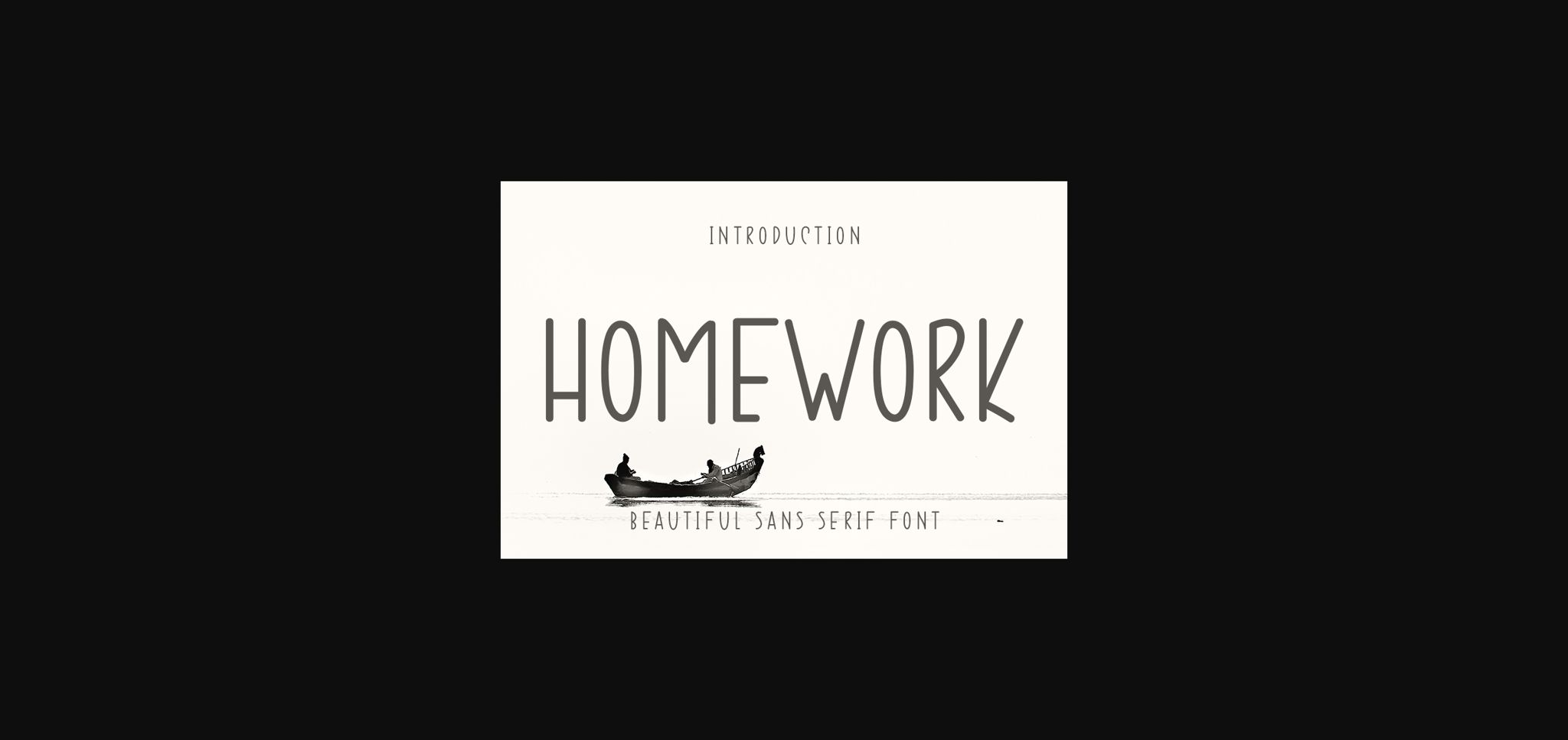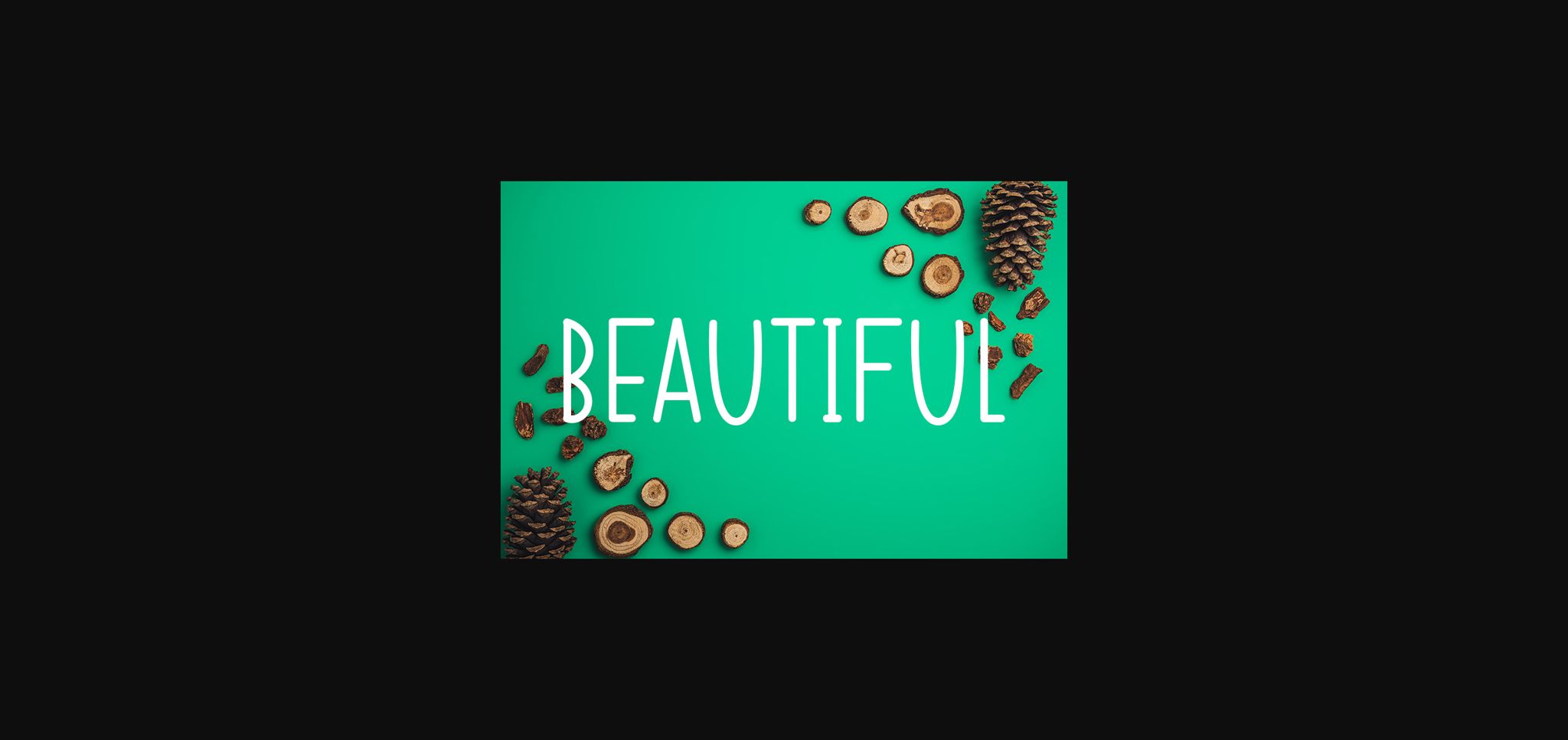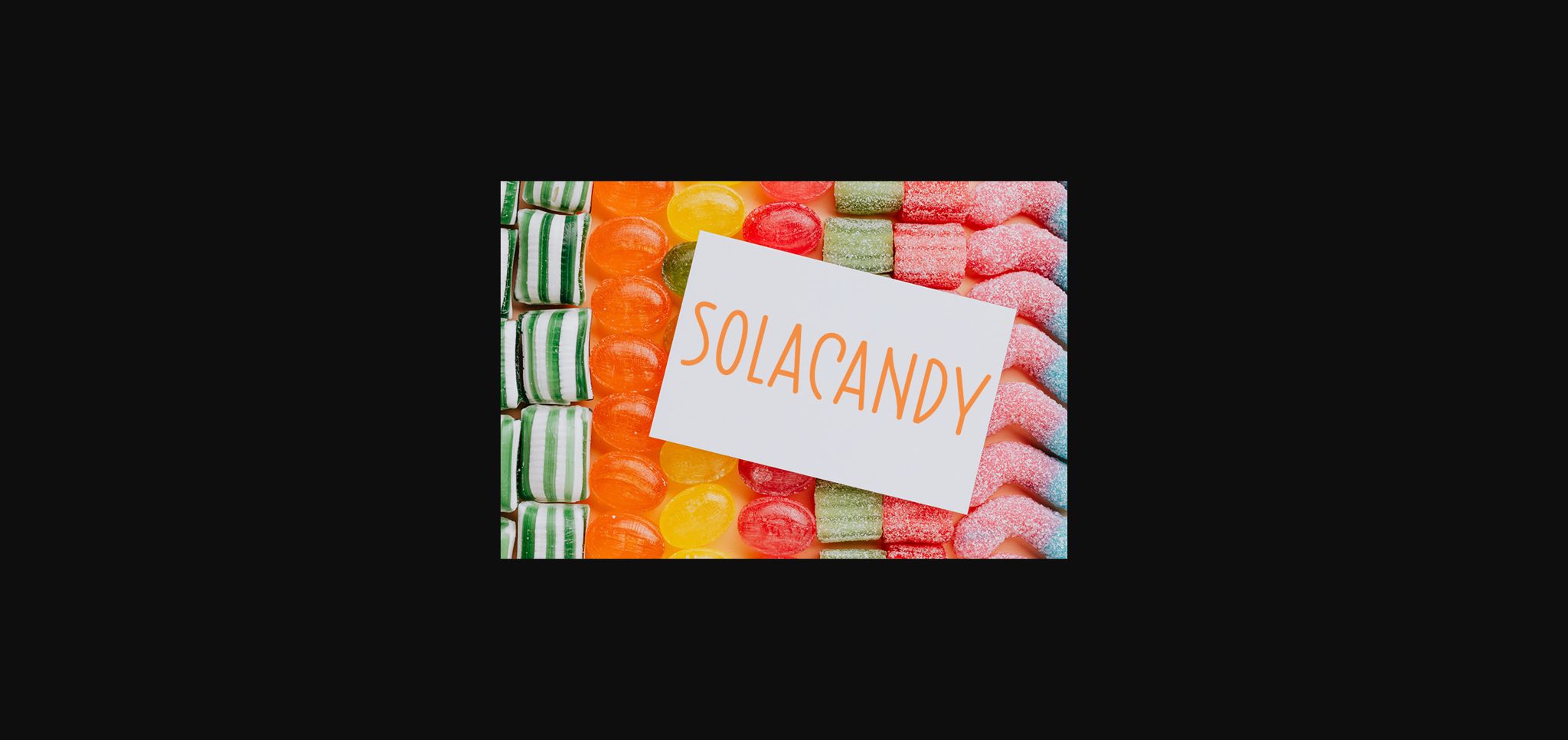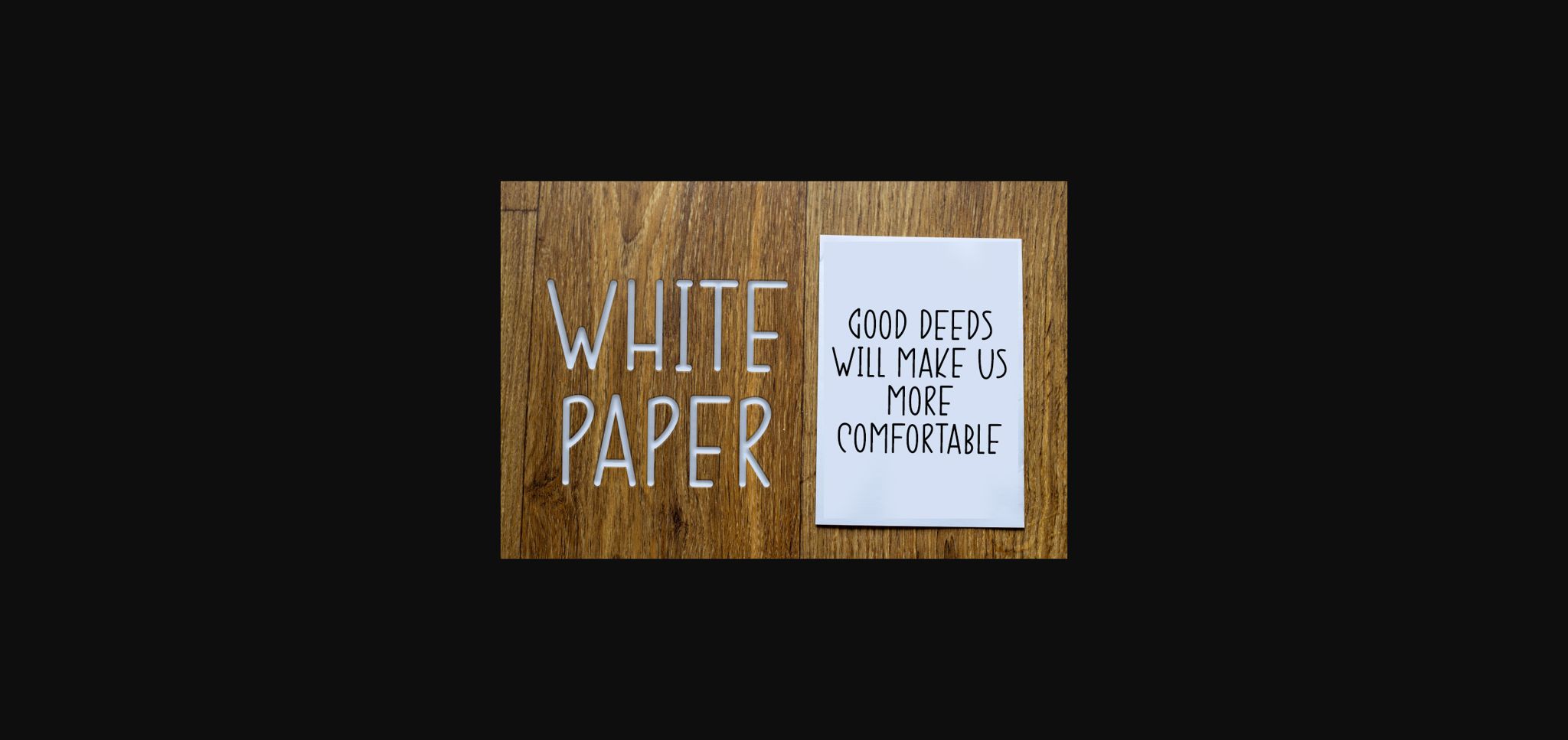
Homework Font
About Homework Font
Homework is a simple and thin sans serif font. Add it to your most creative ideas and notice how it makes them come alive!